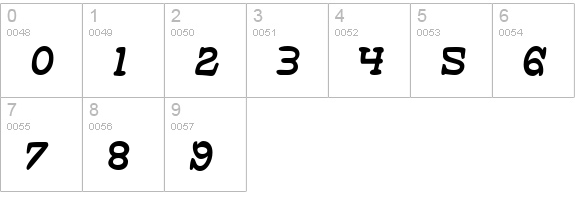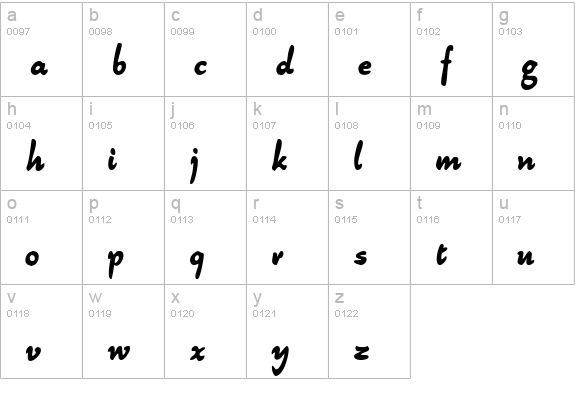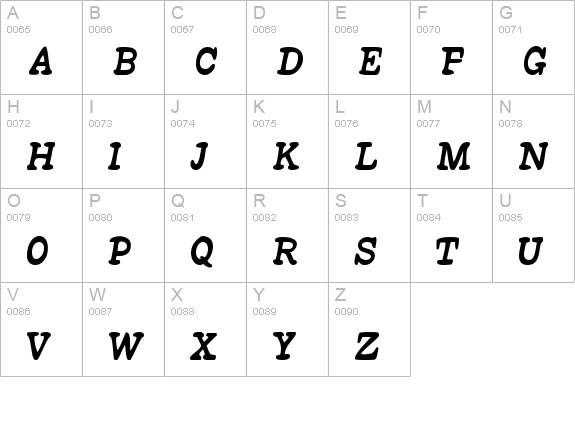
Littlebits font is a charming and whimsical typeface that adds a touch of playfulness to any design. With its unique and quirky letterforms, this font is perfect for projects that require a fun and lighthearted feel. Whether you're creating invitations, greeting cards, or social media graphics, Littlebits font will bring a sense of joy to your work. Best of all, Littlebits font is completely free to download at FontsMarket.com. This means you can easily access this delightful typeface and use it in your projects without any cost. So why wait? Add a sprinkle of fun to your designs with Littlebits font today!